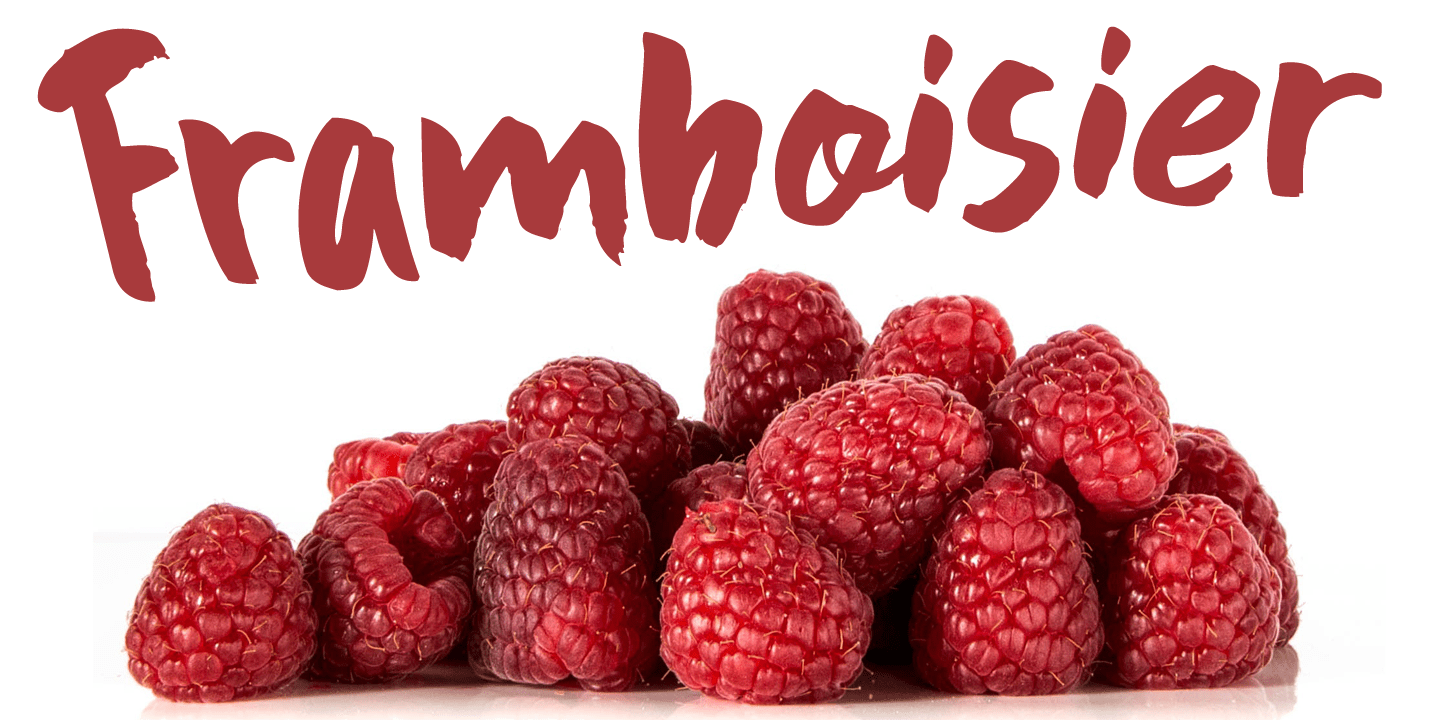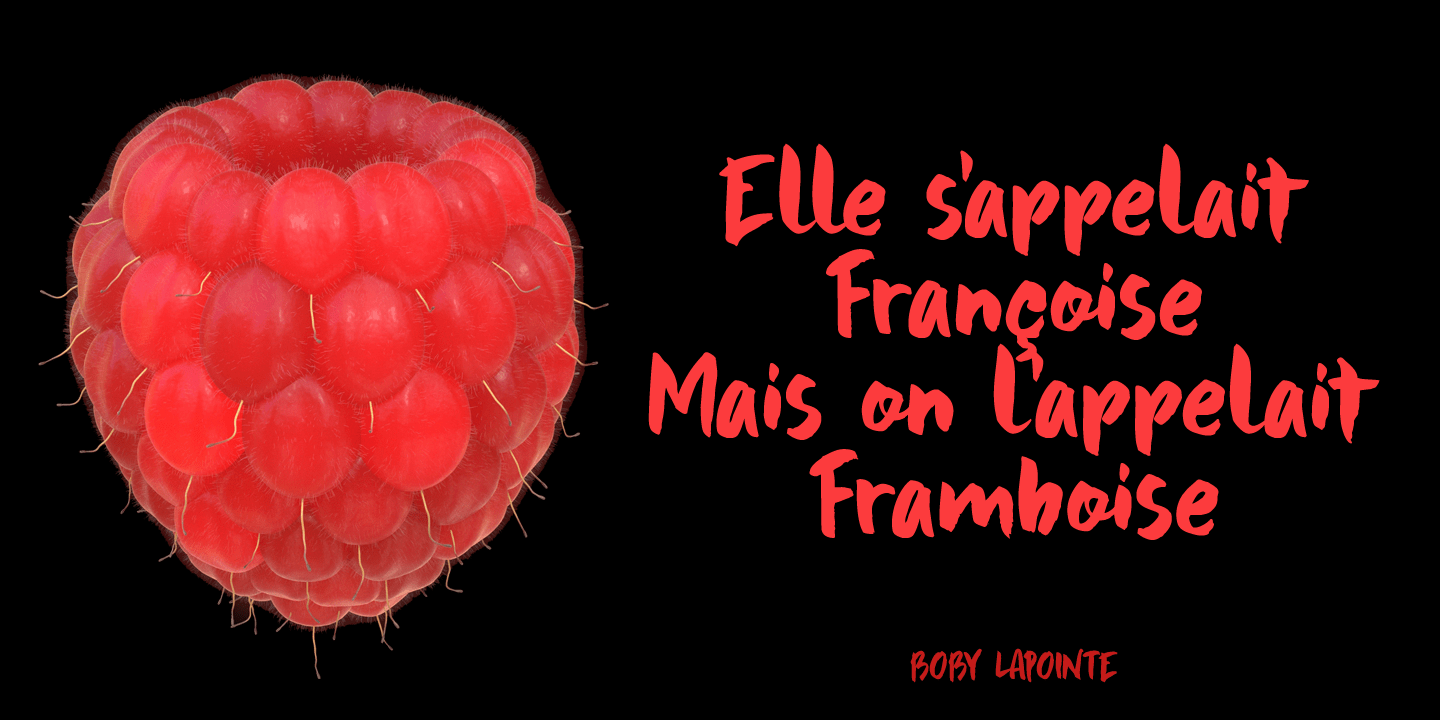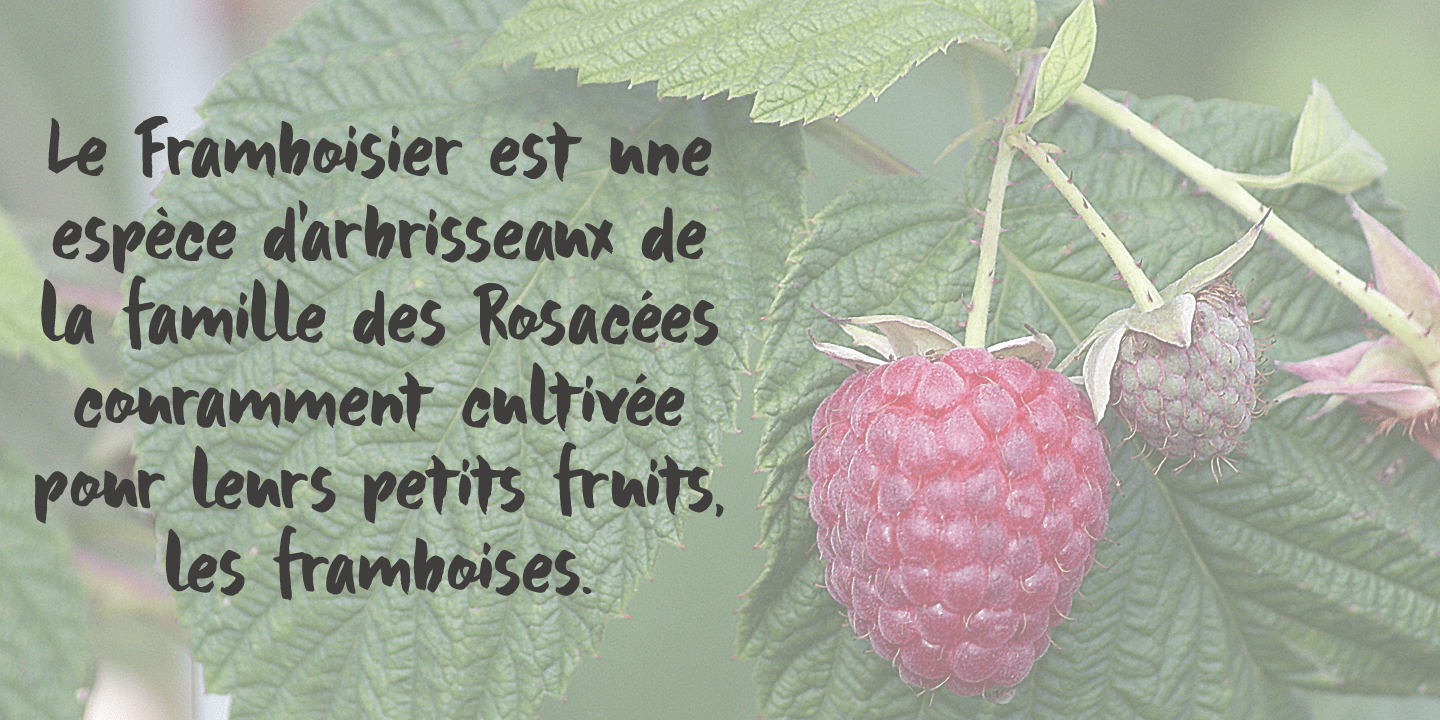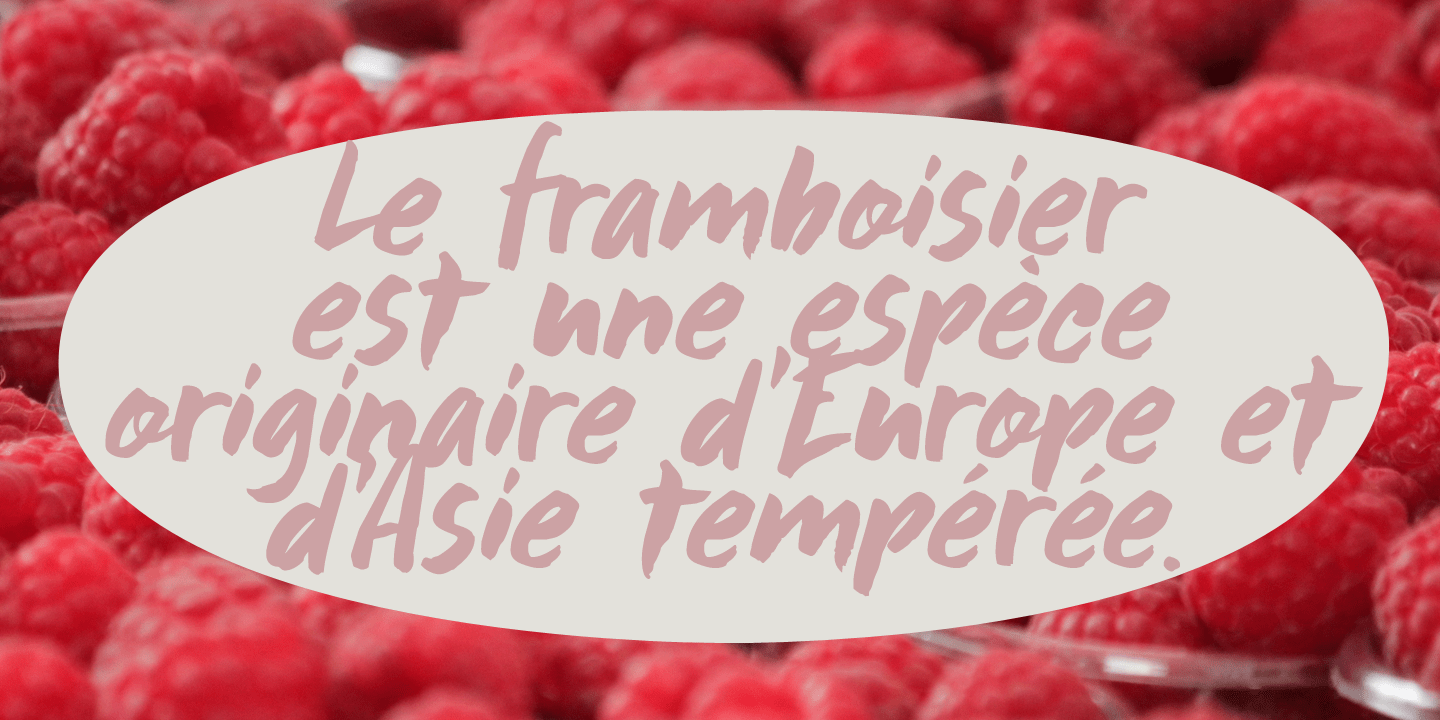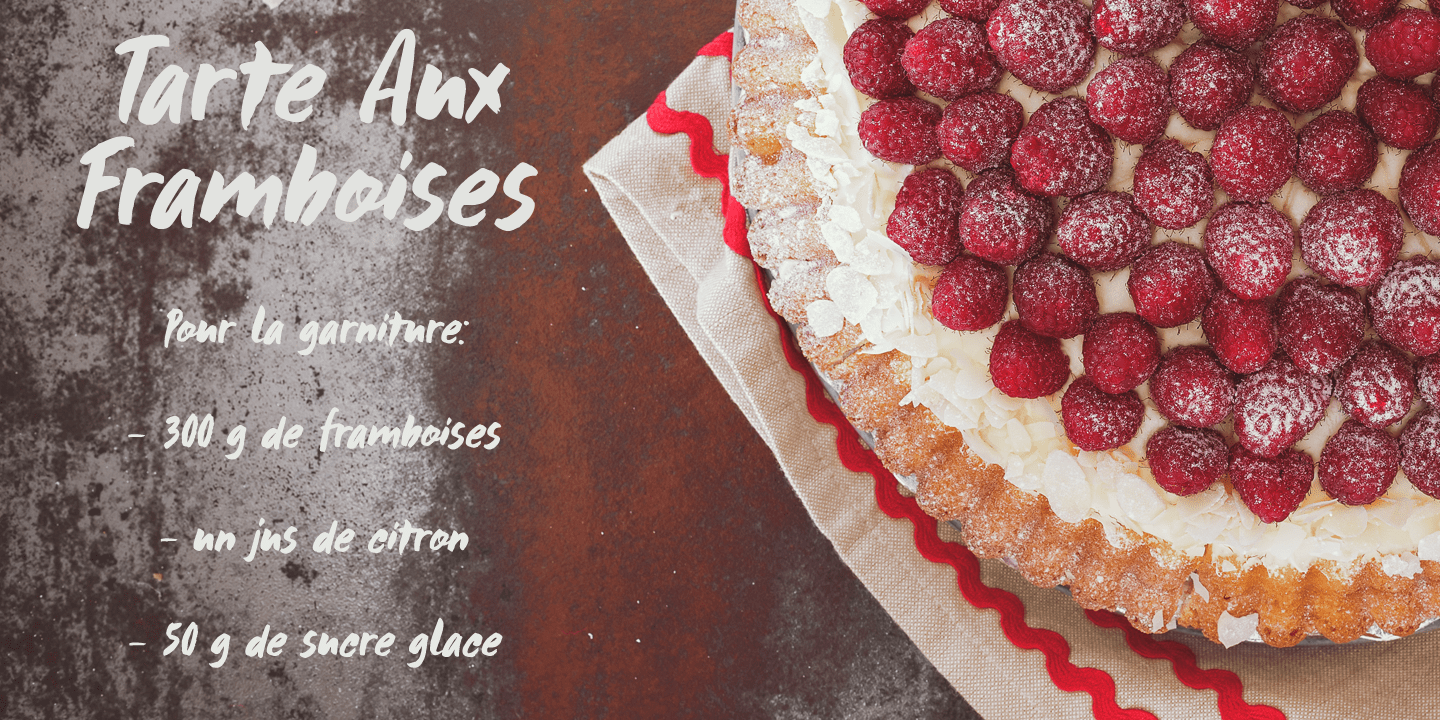
Framboisier
Framboisier means ?Rasberry Bush? in French. Even though it's early spring, I already spotted raspberries at the greengrocers, so I figured a nice raspberry-related name would suit this font just fine.
Framboisier is a hand painted script font. It's a little messy, a little shaky, but legible and cute as well. Comes with all the diacritics and a whole bunch of alternate glyphs.
Framboisier by Hanoded